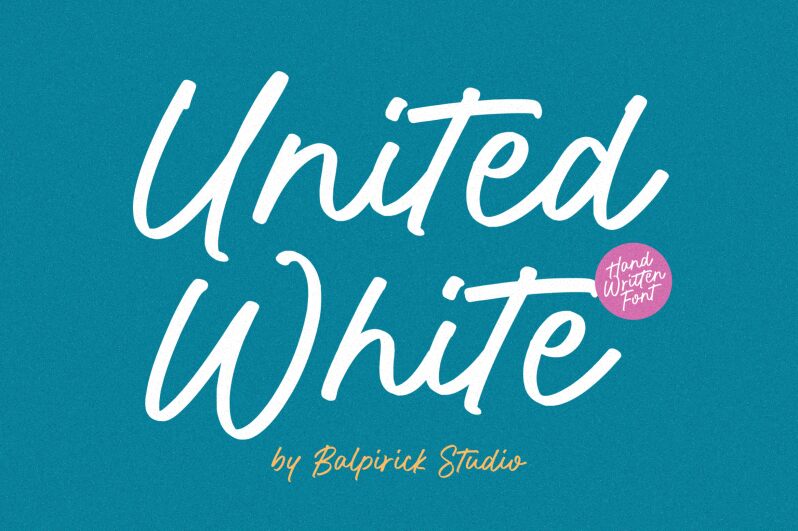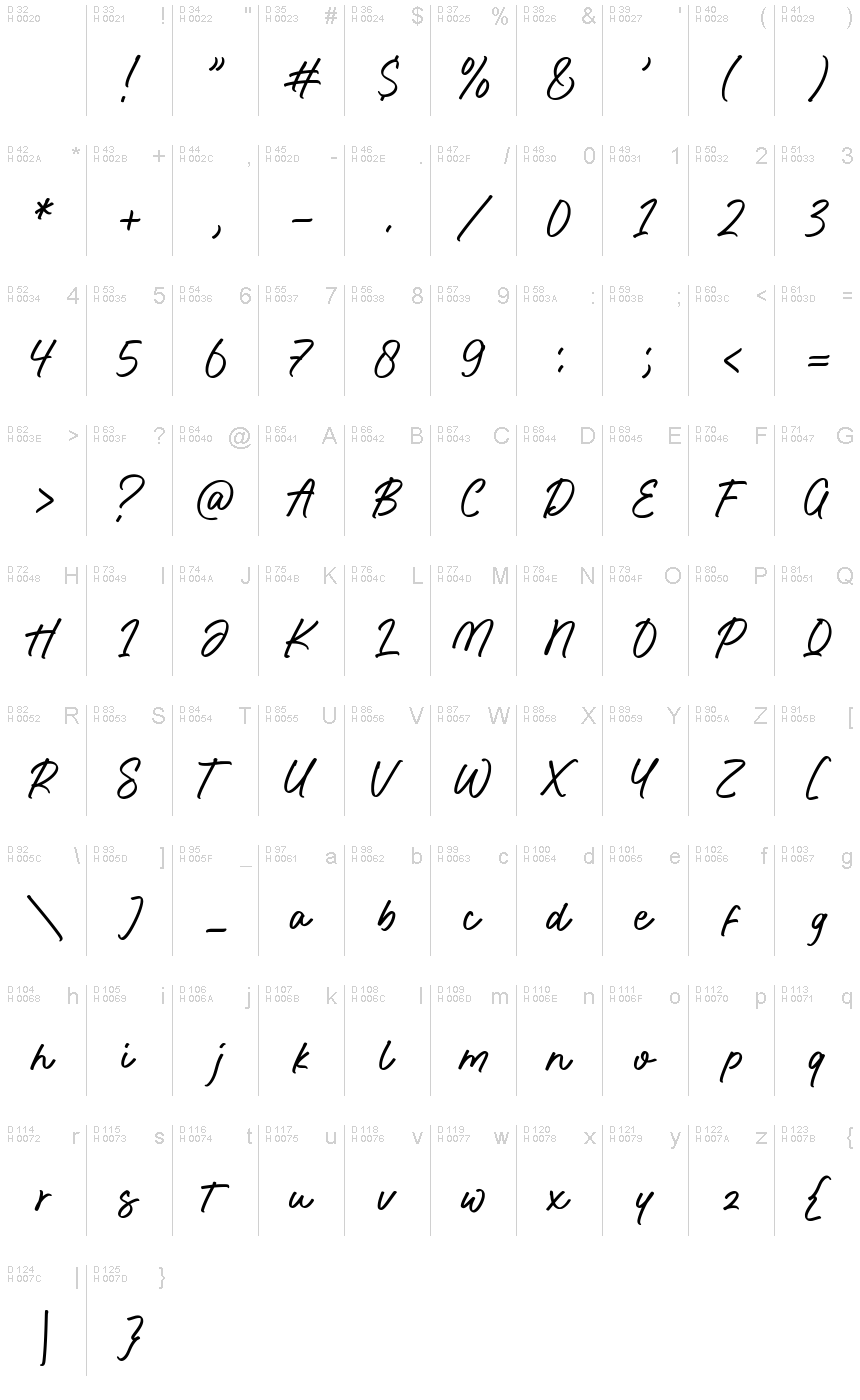
United White by Balpirick Studio is a handwritten font that exudes elegance and personality. Each character flows seamlessly, reflecting the natural movement of hand-lettering. The playful loops and stylish curves give it a unique charm, making it both visually appealing and highly legible.
This font is perfect for personal branding, invitations, and creative projects where a touch of sophistication is desired. Its distinctive style also makes it suitable for logos, social media graphics, and packaging designs, adding an artistic flair to any context. United White effortlessly combines grace with readability, ensuring that your message stands out beautifully.